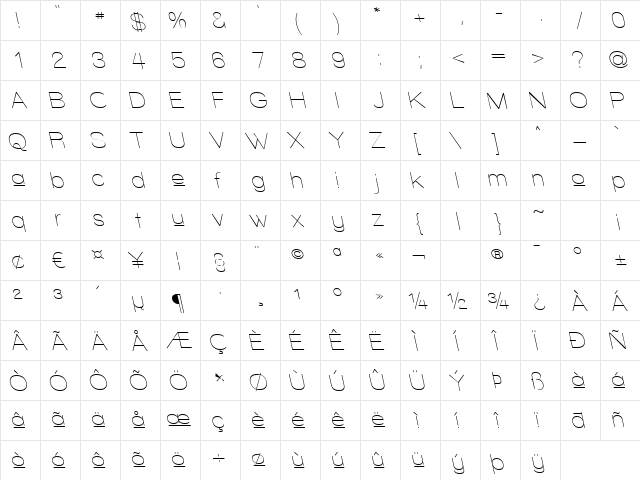
Walkway Upper RevOblique Regular
Design Context for Walkway Upper RevOblique Typeface
Walkway Upper RevOblique takes a measured approach to typography — its balanced proportions and neutral character make it a reliable workhorse for both digital and print work. Its italic angle brings a sense of urgency and motion to the letterforms.
Pro Tip: Try Walkway Upper RevOblique for annotation and caption copy alongside an upright companion — the contrast in angle creates a dynamic but ordered typographic system.